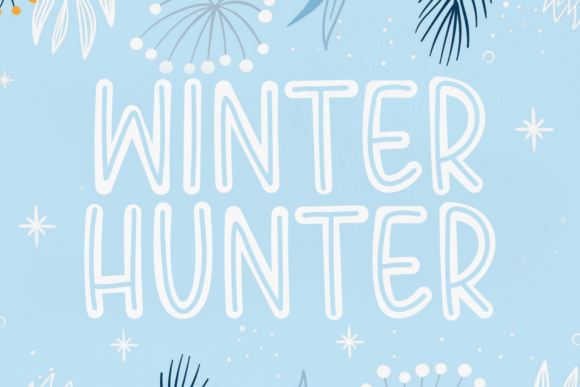
Welcome to the whimsical world of Winter Hunter, an enchanting display font that will ignite your imagination and elevate your designs. Crafted by the talented Roronoa zoro.S.P.D., Winter Hunter exudes a playful and heartwarming charm that will make your creations stand out from the crowd.
Immerse yourself in a font that captures the essence of childlike wonder, with its easy-to-read curves and cheerful personality. Whether you're designing invitations for a special occasion, creating eye-catching posters, or adding a touch of whimsy to your digital projects, Winter Hunter is the perfect choice.
Imagine your greeting cards adorned with the warm embrace of Winter Hunter, conveying your heartfelt messages with an irresistible charm. Its versatility extends to presentations, where your ideas will take flight with a touch of delight. And for the crafters among you, Winter Hunter will transform your handmade creations into works of art, infused with a sense of joy and playfulness.
Indulge in the magic of Winter Hunter, a font that will captivate your audience and leave a lasting impression. With its ability to convey impeccable friendliness, it has the potential to become your go-to font for any occasion, bringing a smile to every project you create.